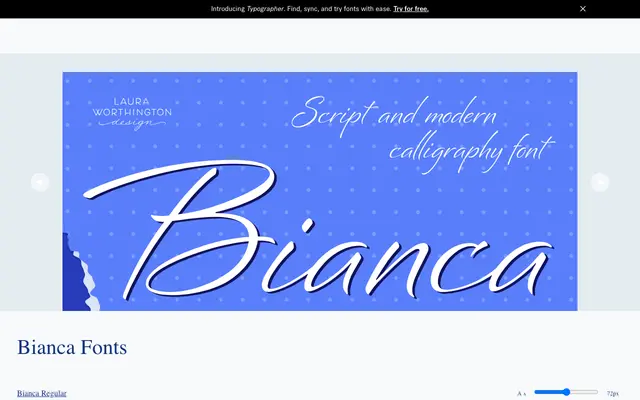
Bianca
A slim, semi-connected script with elegant capitals and over 50 alternate glyphs, suited to fashion and lifestyle branding.
Slim strokes, gently curving verticals and large decorative capitals give Bianca a refined, feminine character typical of fashion-oriented display scripts. A single Regular weight is available, but over 50 alternate glyphs accessible via OpenType features allow considerable variation within a design. Latin Extended coverage spans 27 languages including Czech, Polish and Turkish.
Bianca is explicitly described as a semi-connected script with slim strokes and gently curving verticals, placing it firmly in the script category with a calligraphic, fashion-oriented style.